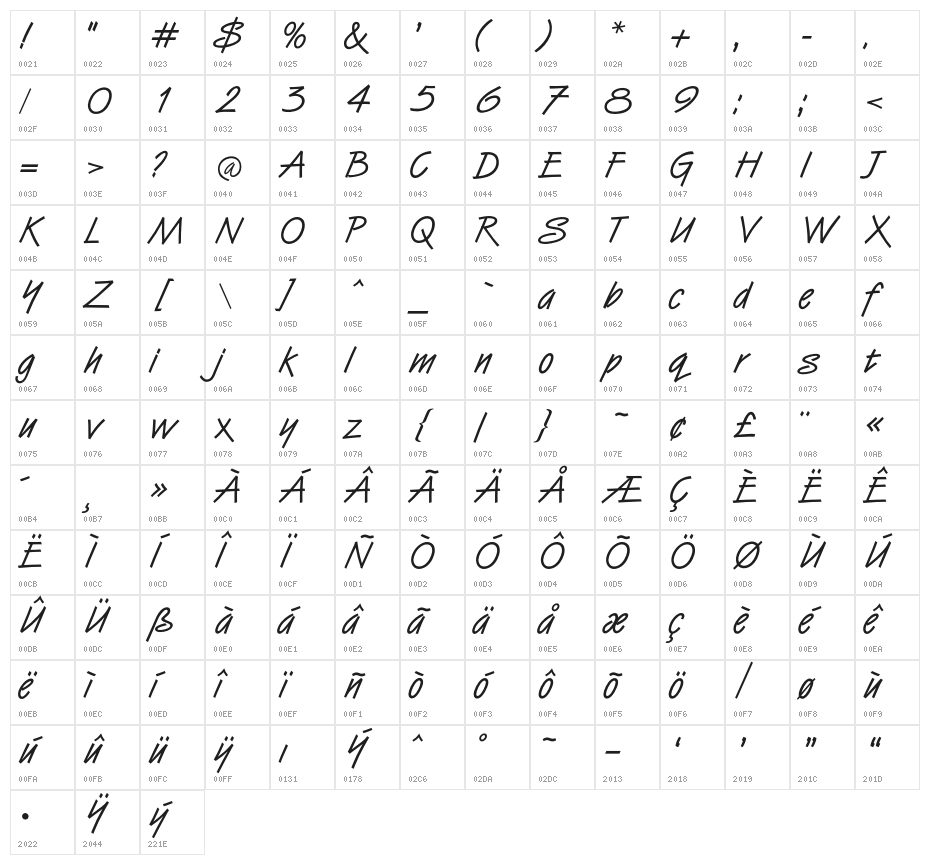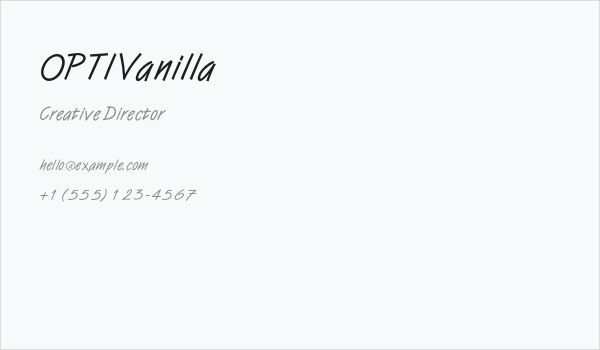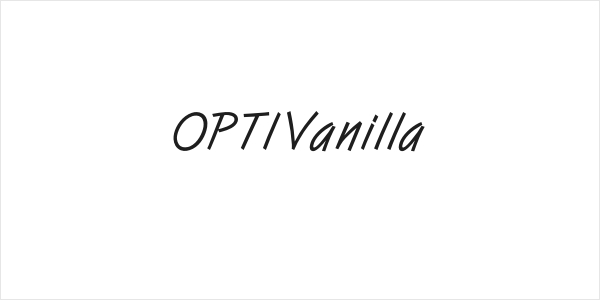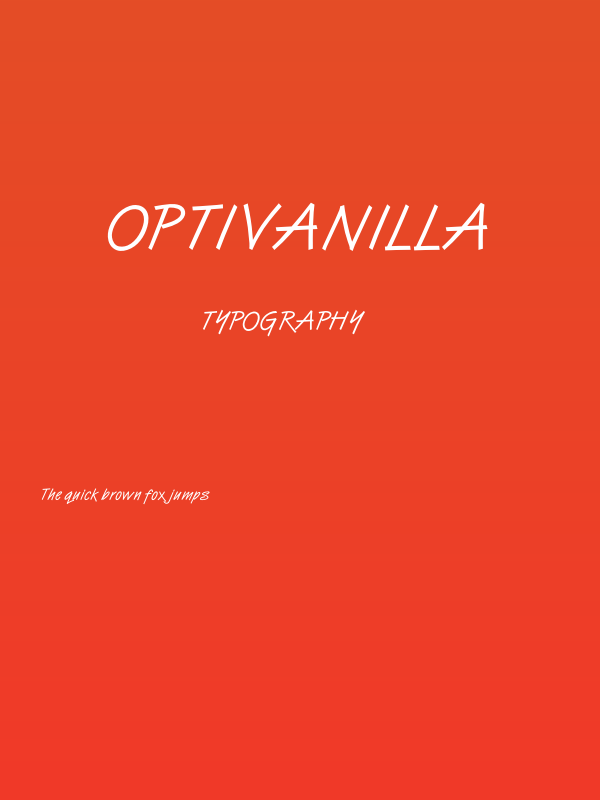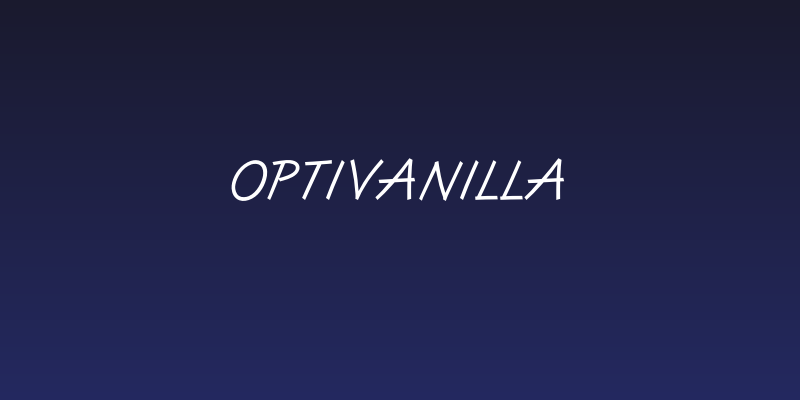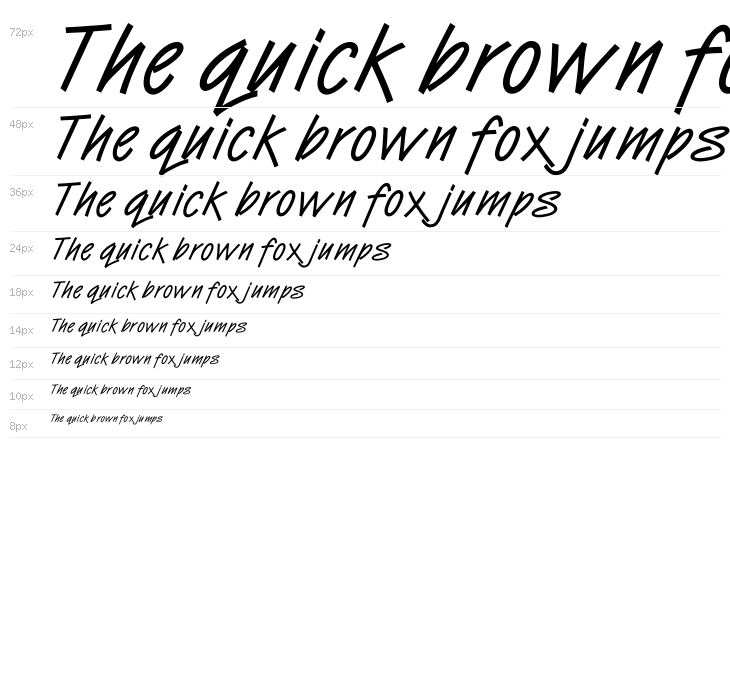
OPTIVanilla Font
OPTIVanilla Description
This font features a dynamic and energetic script style, characterized by its fluid, cursive strokes and slight slant to the right. The uppercase letters are bold and expressive, with a distinct flair that adds a touch of elegance and sophistication. The lowercase letters maintain a consistent flow, enhancing readability while retaining a stylish appearance. The numerals are well-proportioned and align seamlessly with the overall design. Special characters are crafted with the same attention to detail, ensuring they complement the font's aesthetic. This font's unique style makes it suitable for a variety of creative applications.